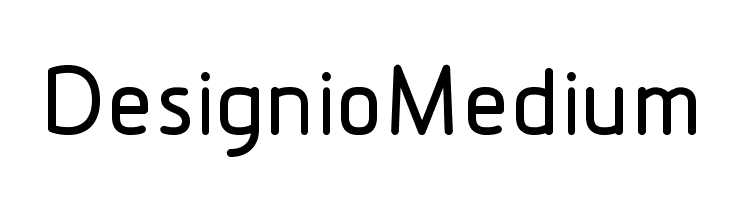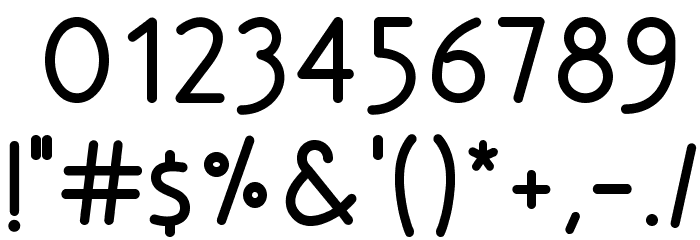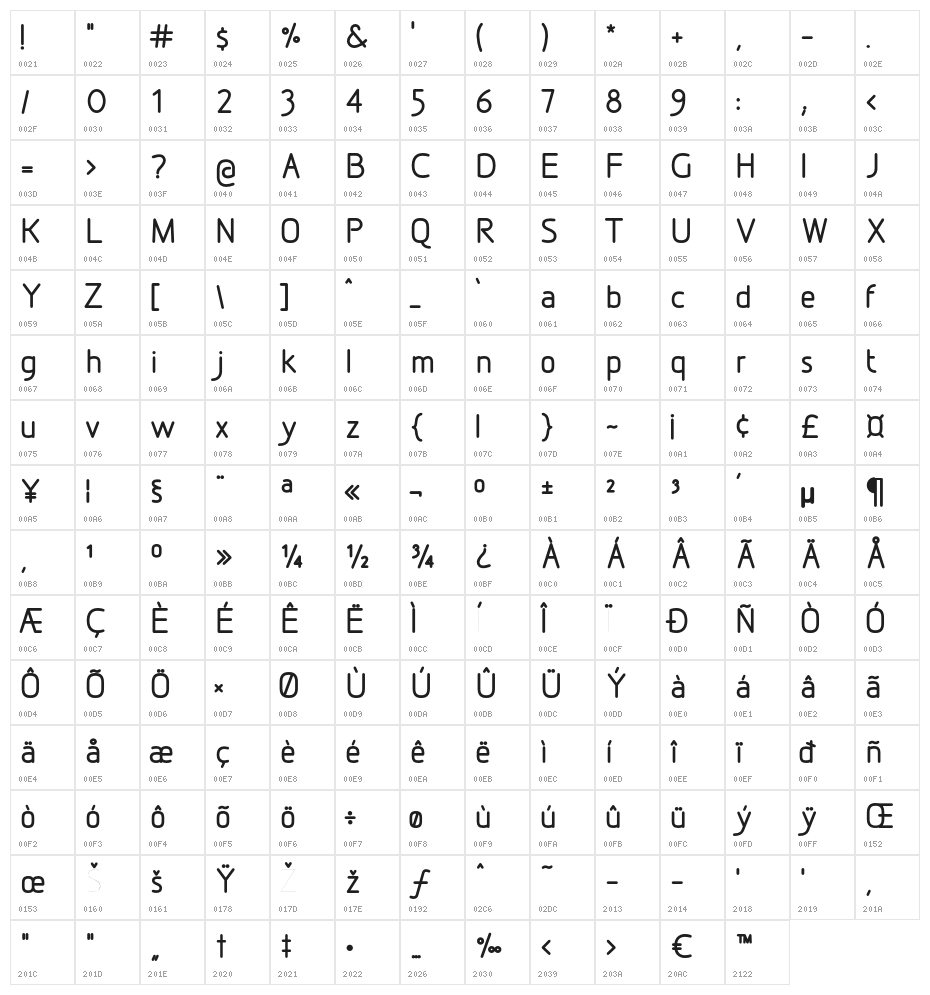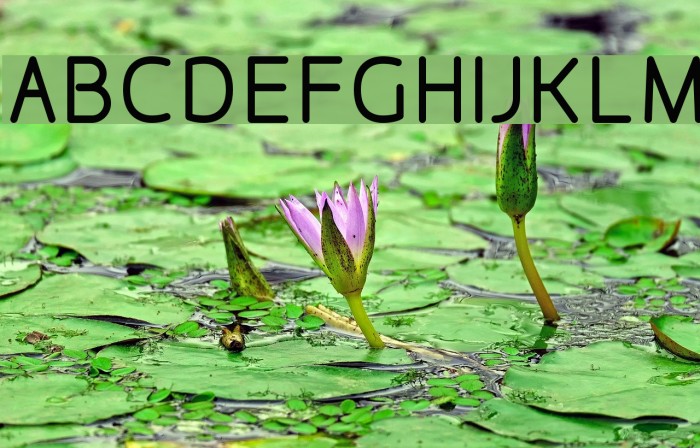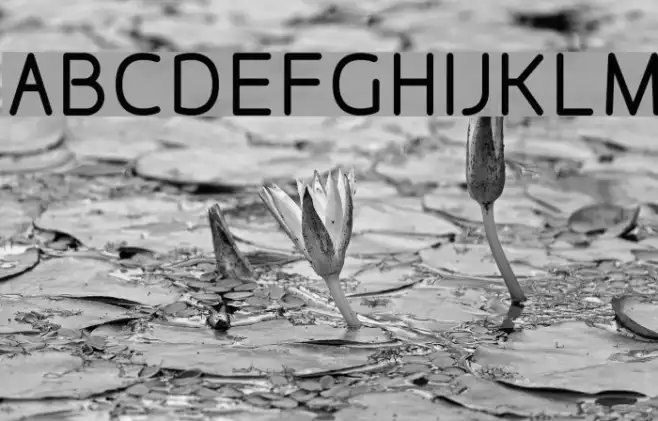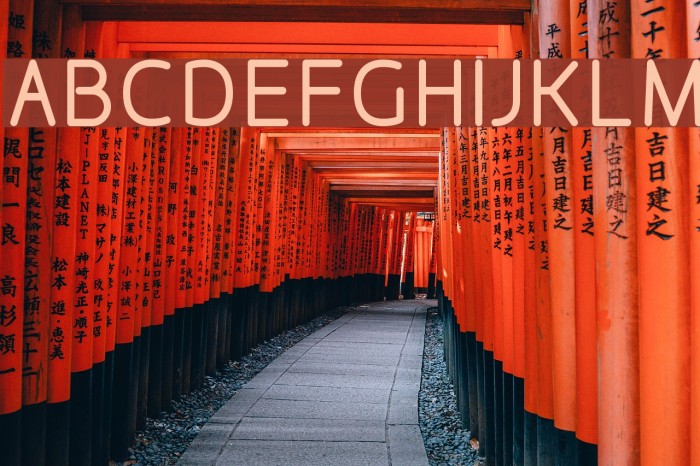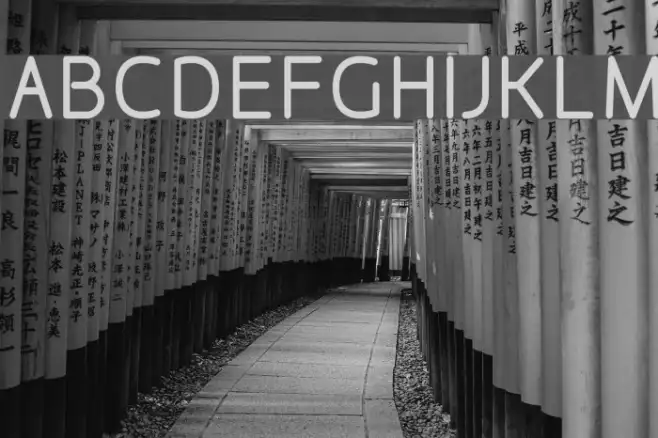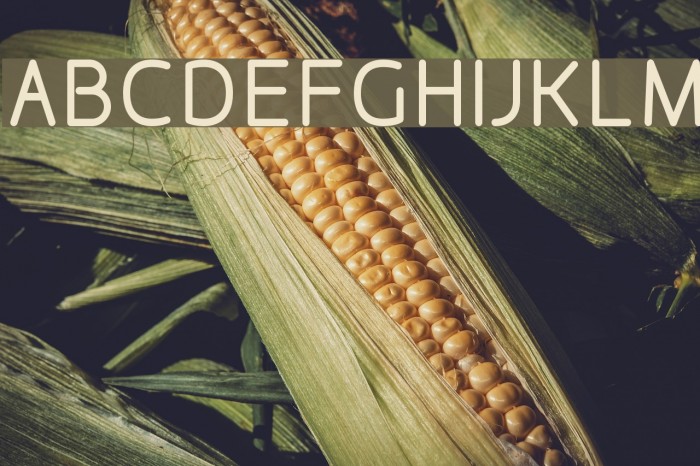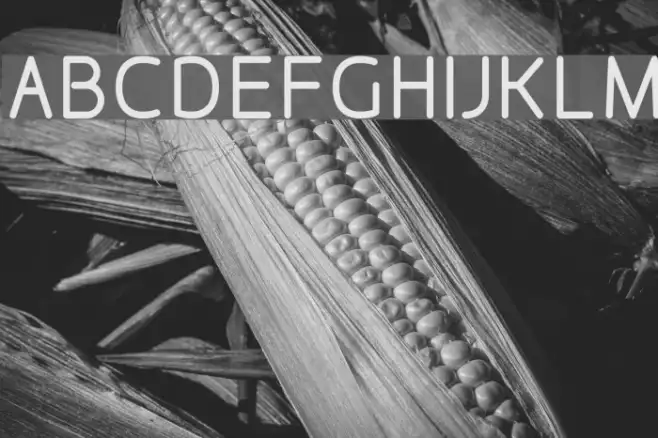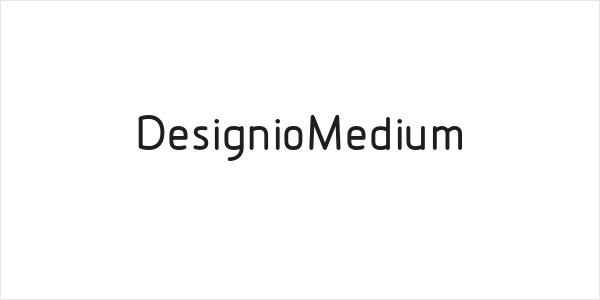
DesignioMedium Font
DesignioMedium Description
This font features a clean and modern sans-serif design, characterized by its rounded edges and uniform stroke width. The uppercase and lowercase letters maintain a consistent style, providing a harmonious look across all characters. The numerals and special characters are designed to complement the alphabet, ensuring readability and aesthetic appeal. Its simplicity and clarity make it suitable for a wide range of applications, from digital interfaces to print media. The font's geometric shapes and balanced proportions contribute to its contemporary and versatile appearance.
| Proposed Projects | Ideal for web design, branding, advertising, and user interfaces. |